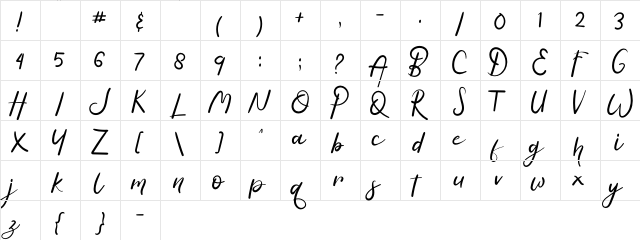
Hasella Regular
Design Context for Hasella Typeface
Hasella is a composed and adaptable typeface that performs quietly and consistently across a wide range of design contexts.